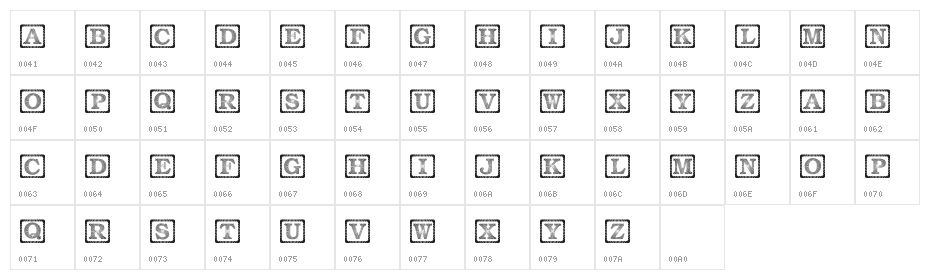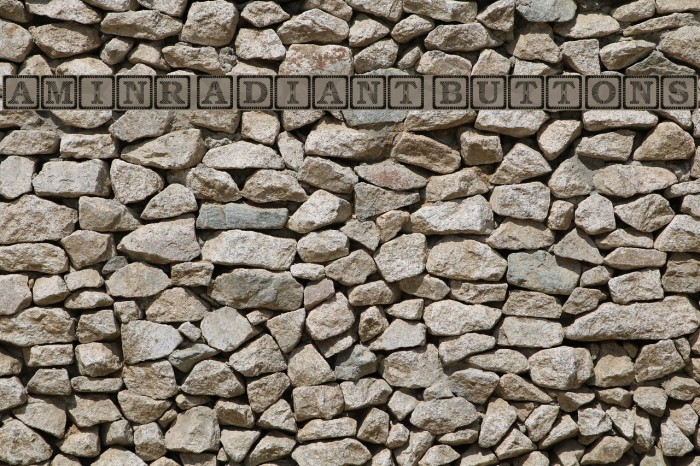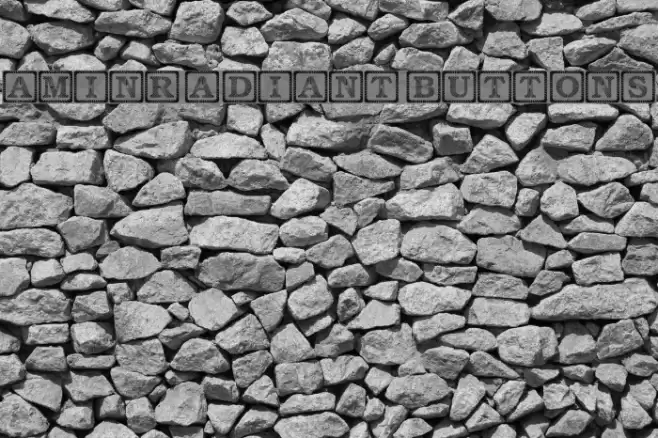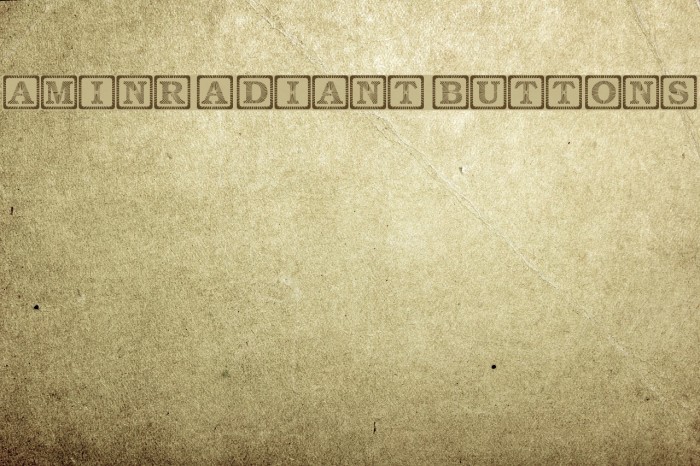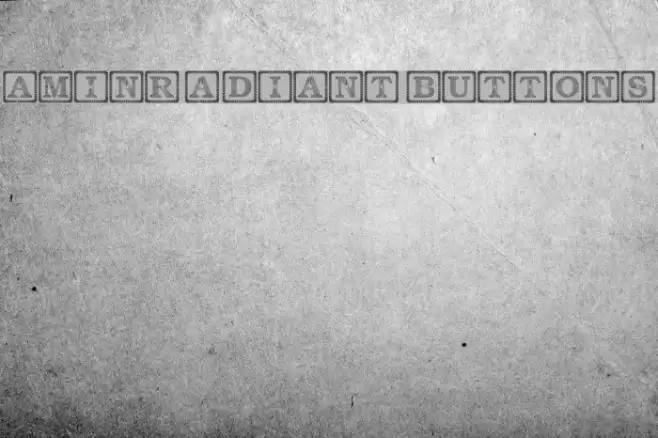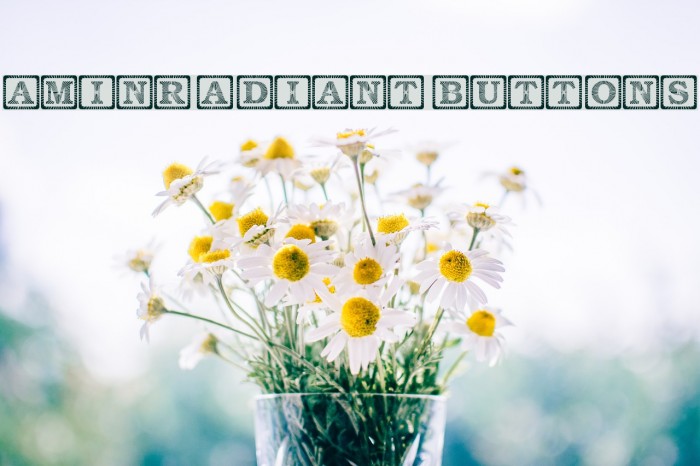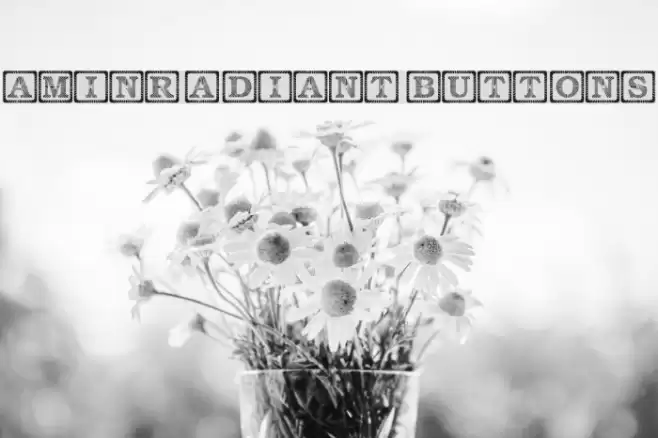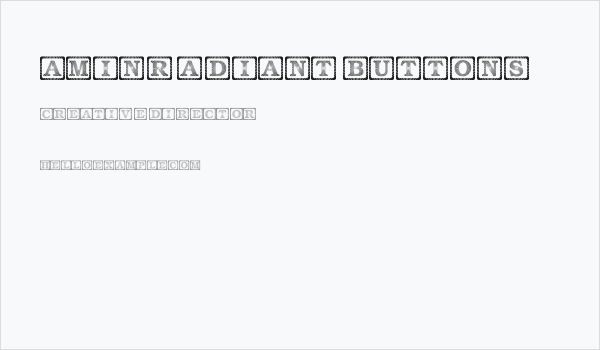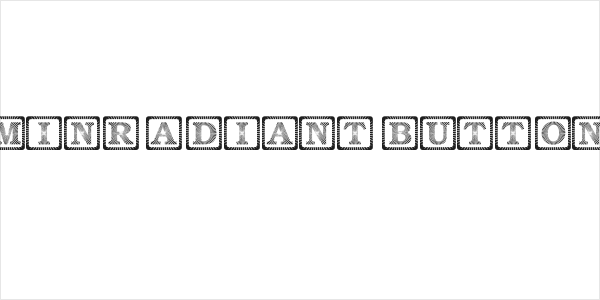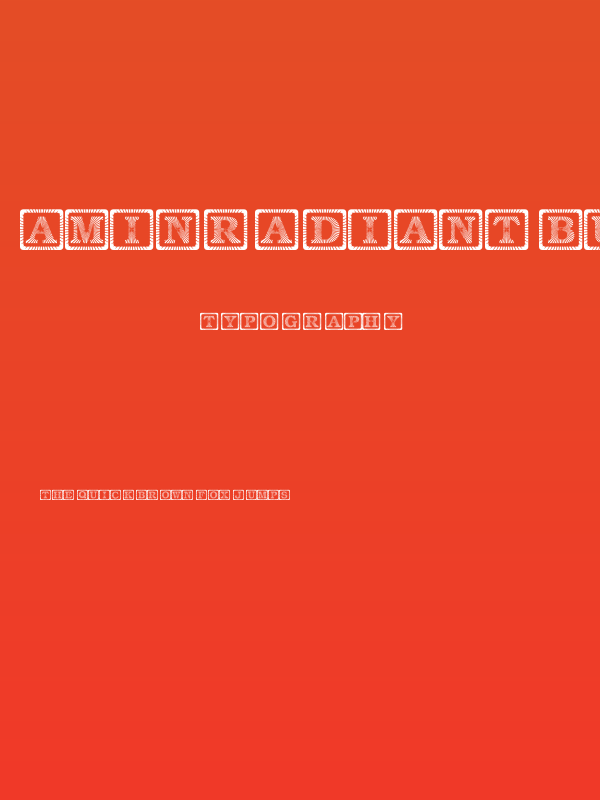
Amin_Radiant Buttons Font
Amin_Radiant Buttons Description
This font features a unique decorative style with each character enclosed in a square box. The letters are bold and capitalized, with a distinct pattern of diagonal lines filling the background of each box. The design gives a sense of depth and texture, making it stand out. The uniformity of the boxes creates a structured and organized appearance, while the intricate line work adds an artistic flair. This font is visually striking and can be used to draw attention to specific text elements.
| Proposed Projects | Ideal for use in posters, logos, and branding materials where a bold and artistic statement is desired. |